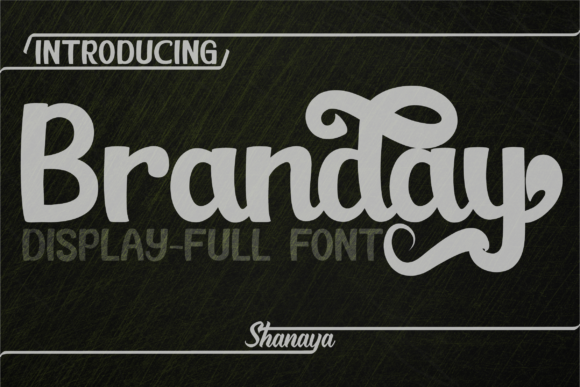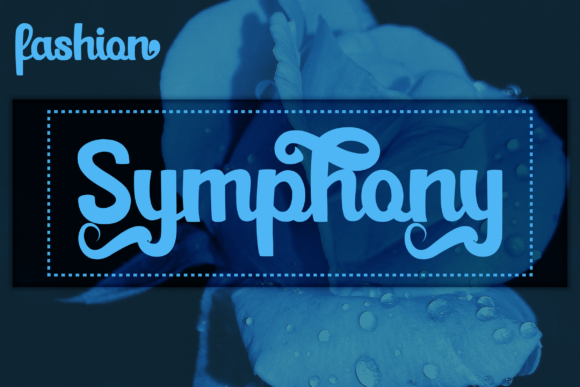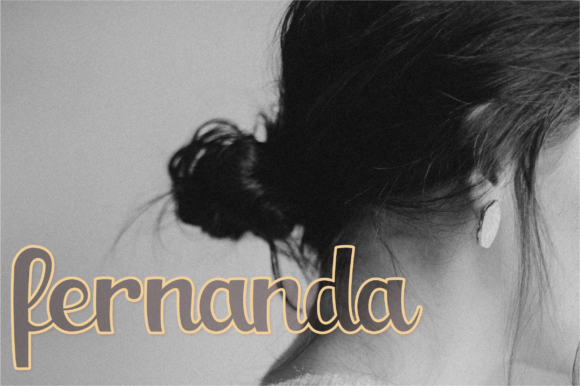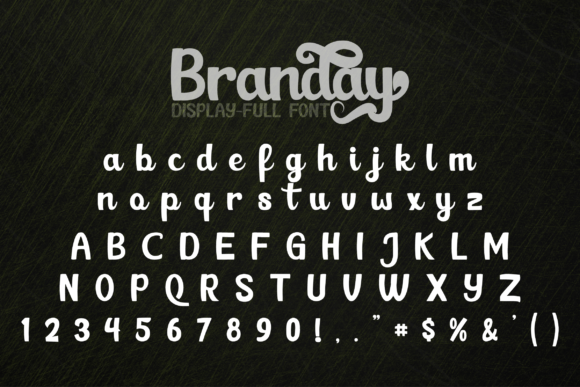
HomeScript FontsBranday Font Script Fonts Branday Font FacebookXPinterestWhatsApp Branday Font Poster 2 Branday Font Poster 3 Branday Font Poster 4 About Branday Font Branday is a retro script with playful swashes. It will make any design stand out. DOWNLOAD ON CREATIVE FABRICAThis font is sold and delivered by Creative Fabrica. Font Canyon may earn a commission if you buy through this link. People also explored Sweet Wedding Font Belmonth Font Lillybonie Font Mucay Font Samara Ainsley Font Cinematic Font Boiller Font Lovely Vanilla Font Blester Font 374 0 TagsBranday Font Previous articleGriseldya FontNext articleBalconies Font LEAVE A REPLY Cancel reply Comment: Please enter your comment! Name:* Please enter your name here Email:* You have entered an incorrect email address! Please enter your email address here Website: Save my name, email, and website in this browser for the next time I comment. Personal Use Free Puisi Adinda Personal Use Free Read more about this font Motherblood Personal Use Free Read more about this font Lollipop Melody Personal Use Free Read more about this font Fadhista Personal Use Free Read more about this font BLOG Fonts That Capture the Spirit of New York City New York City is more than just a place—it’s an experience, a rhythm, a visual language... The 10 Best Handwriting Fonts to Add Personality to Your Designs Elegant Wedding Invitation Fonts – Handwritten & Script Fonts Free Fonts Risk: Why Free Fonts Can Be Dangerous for Designers